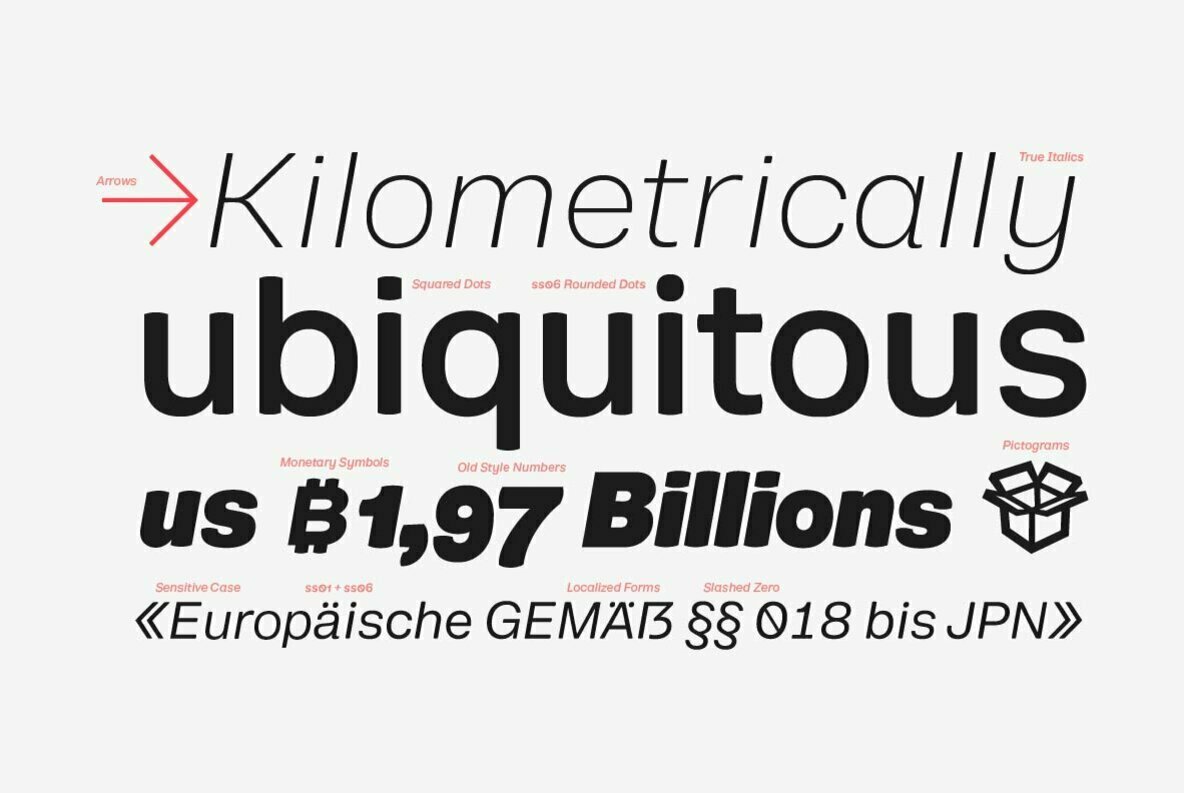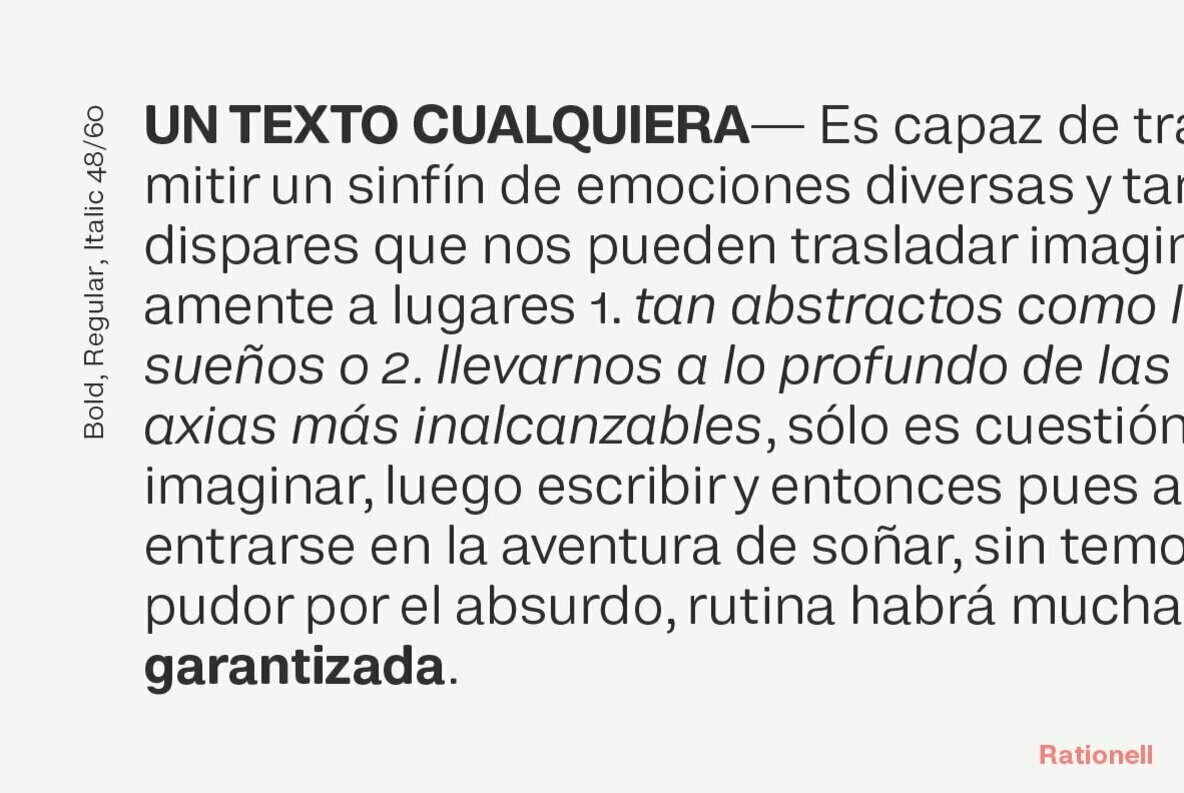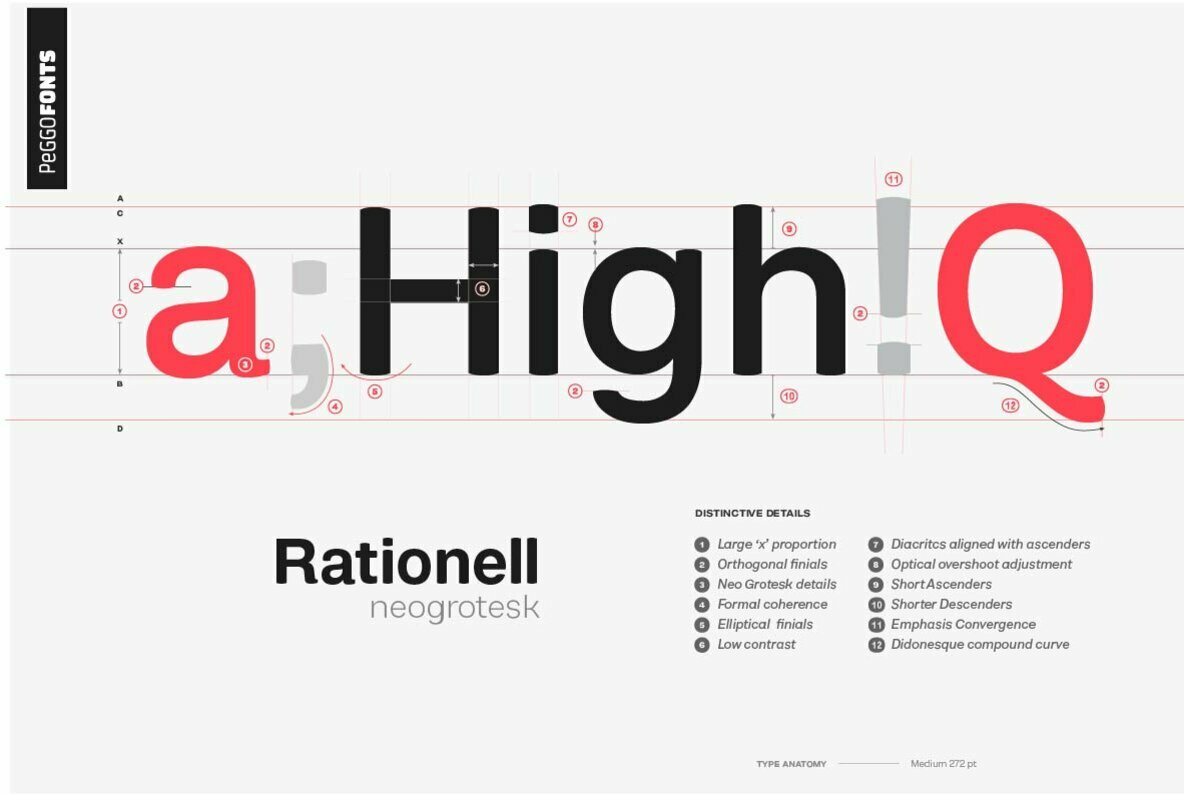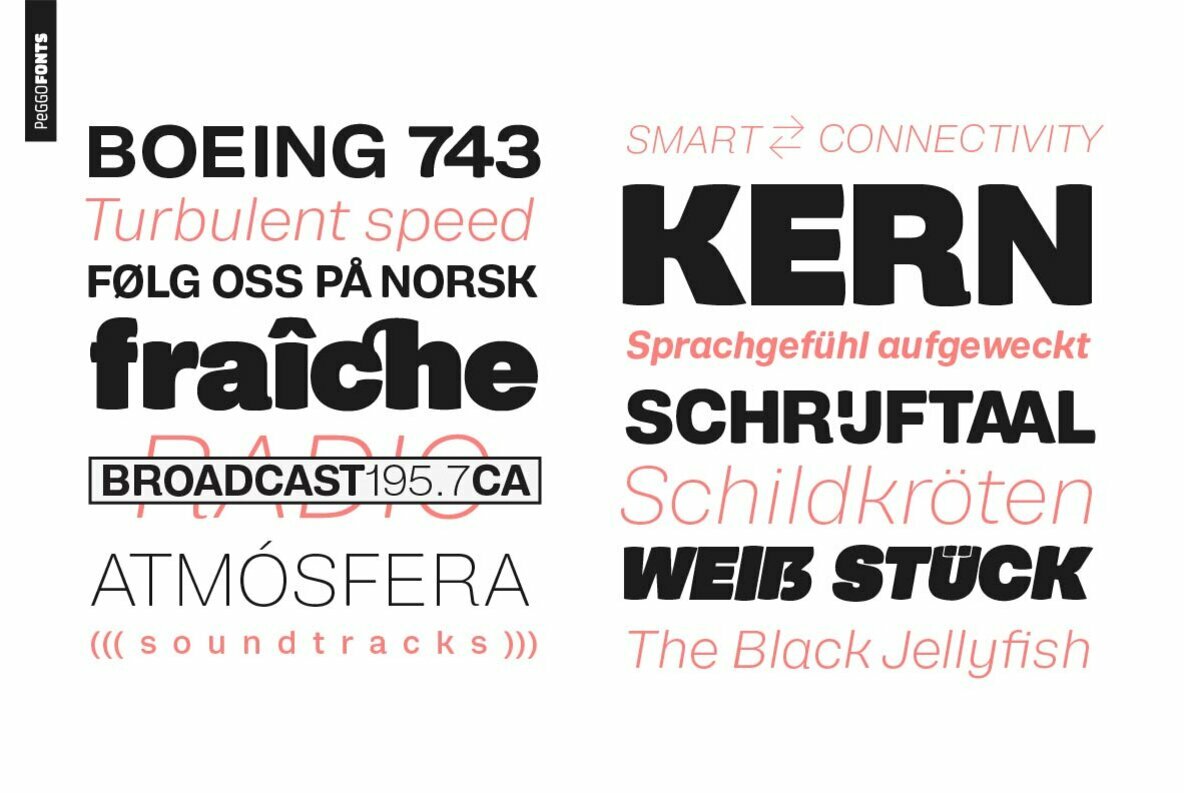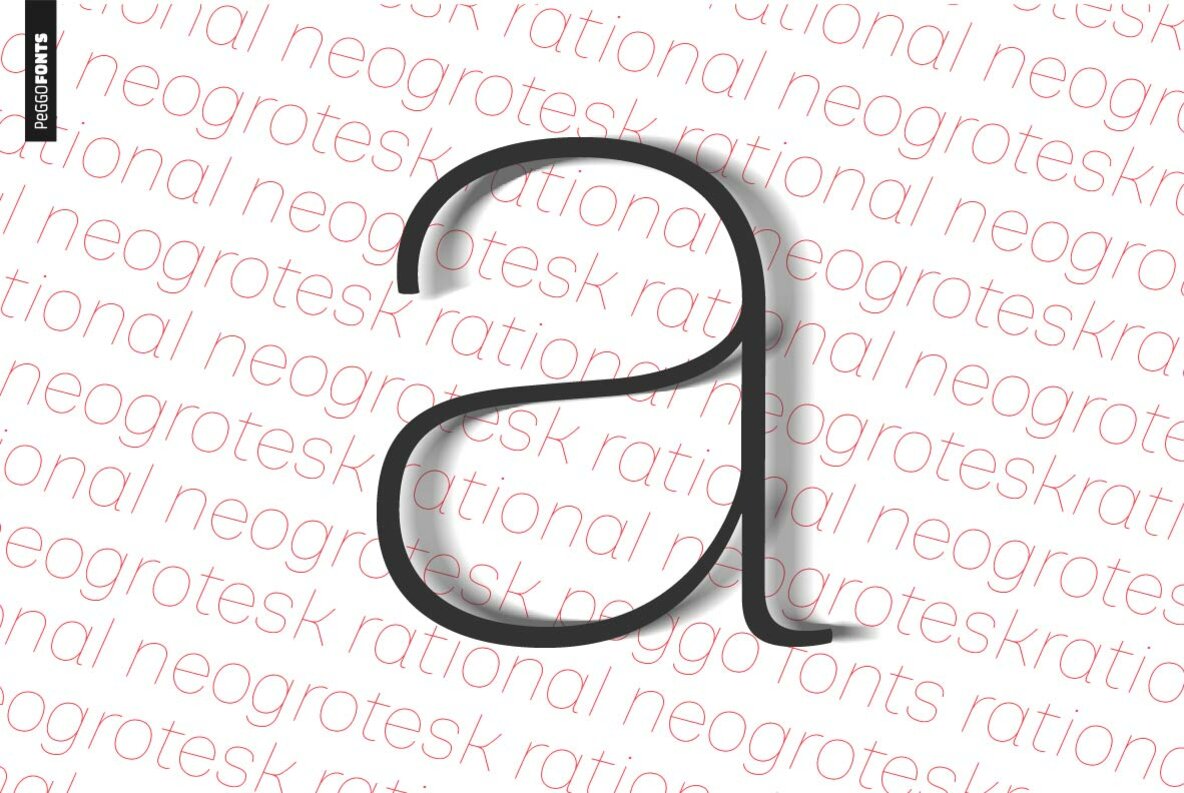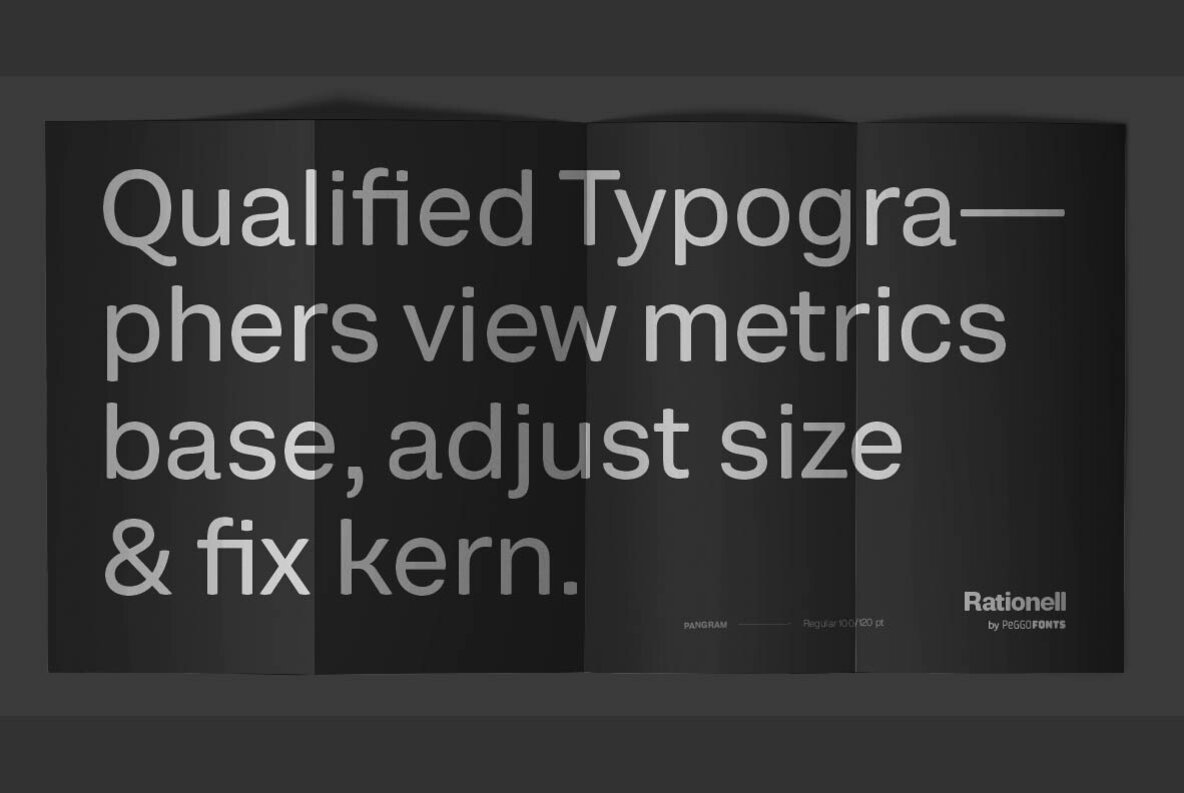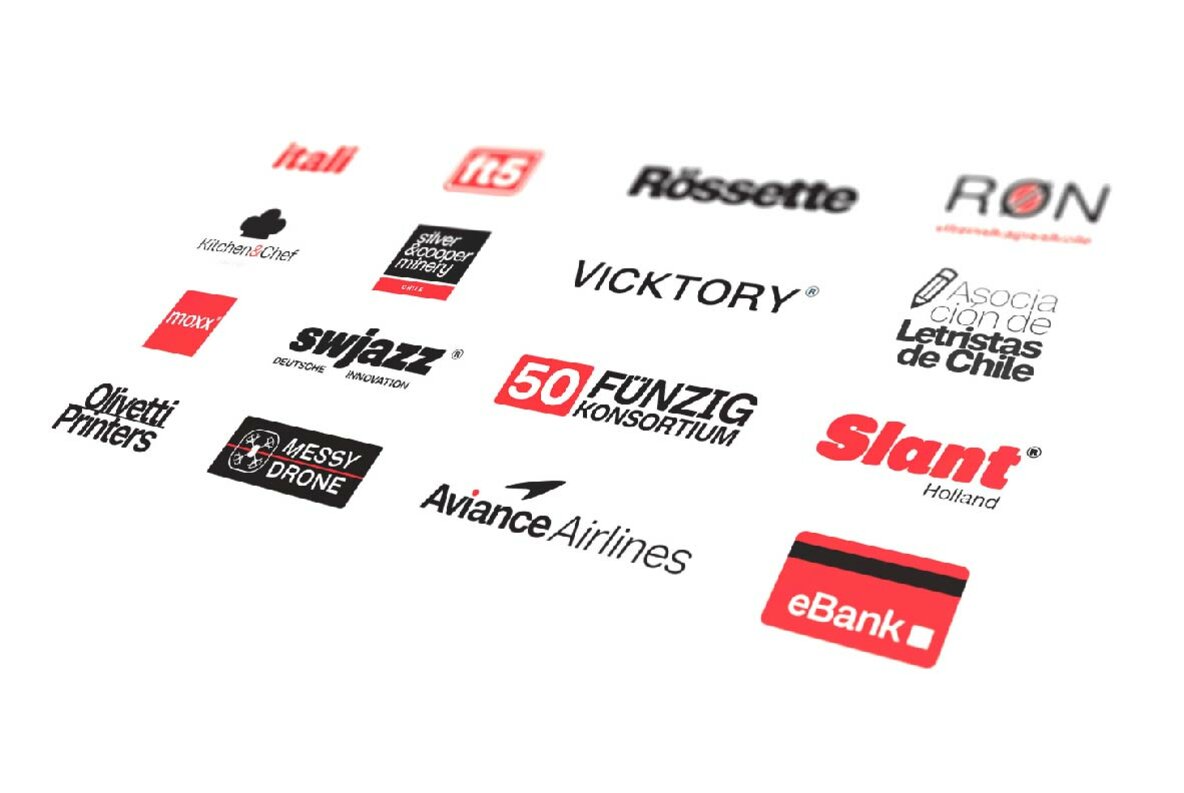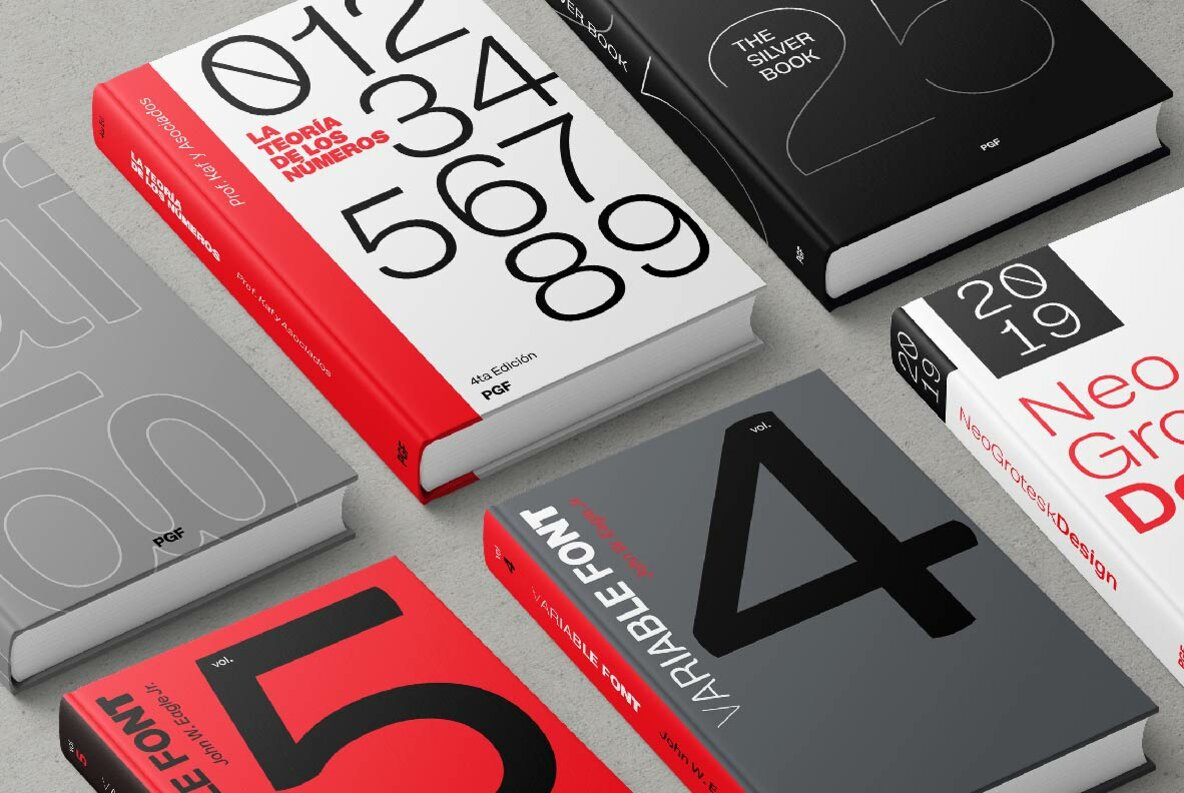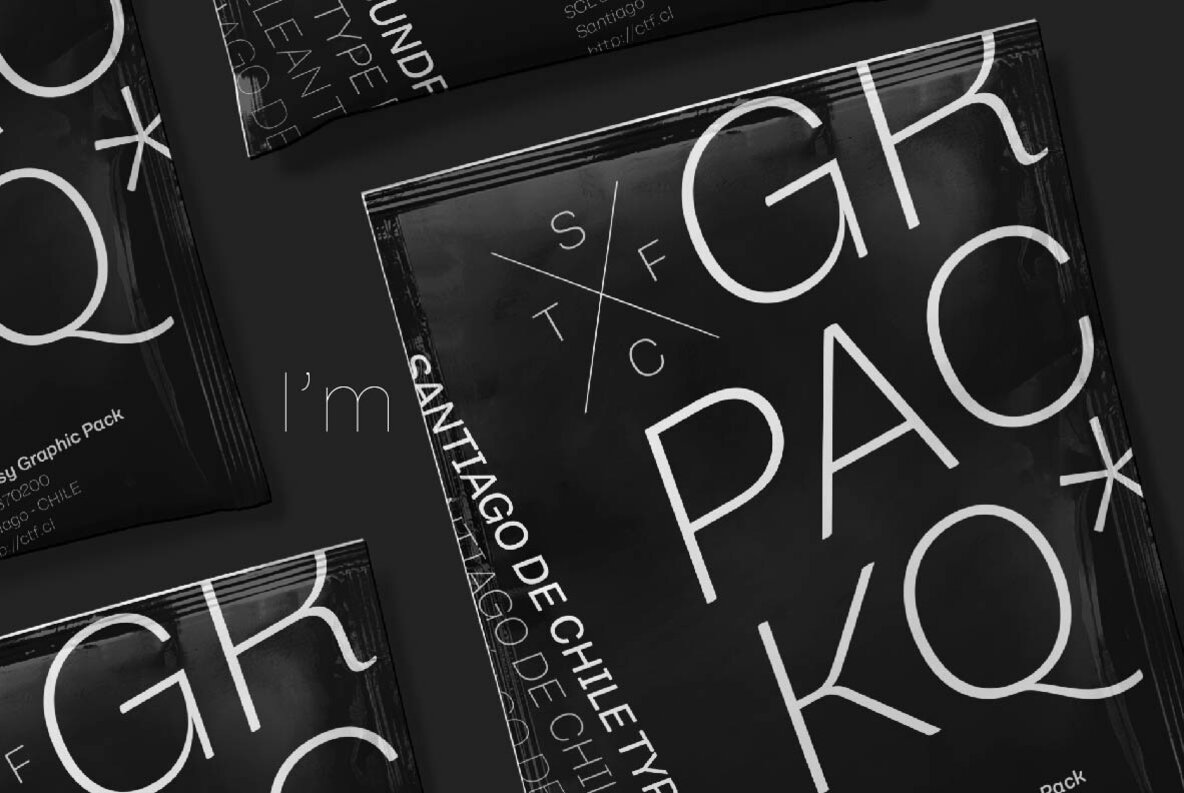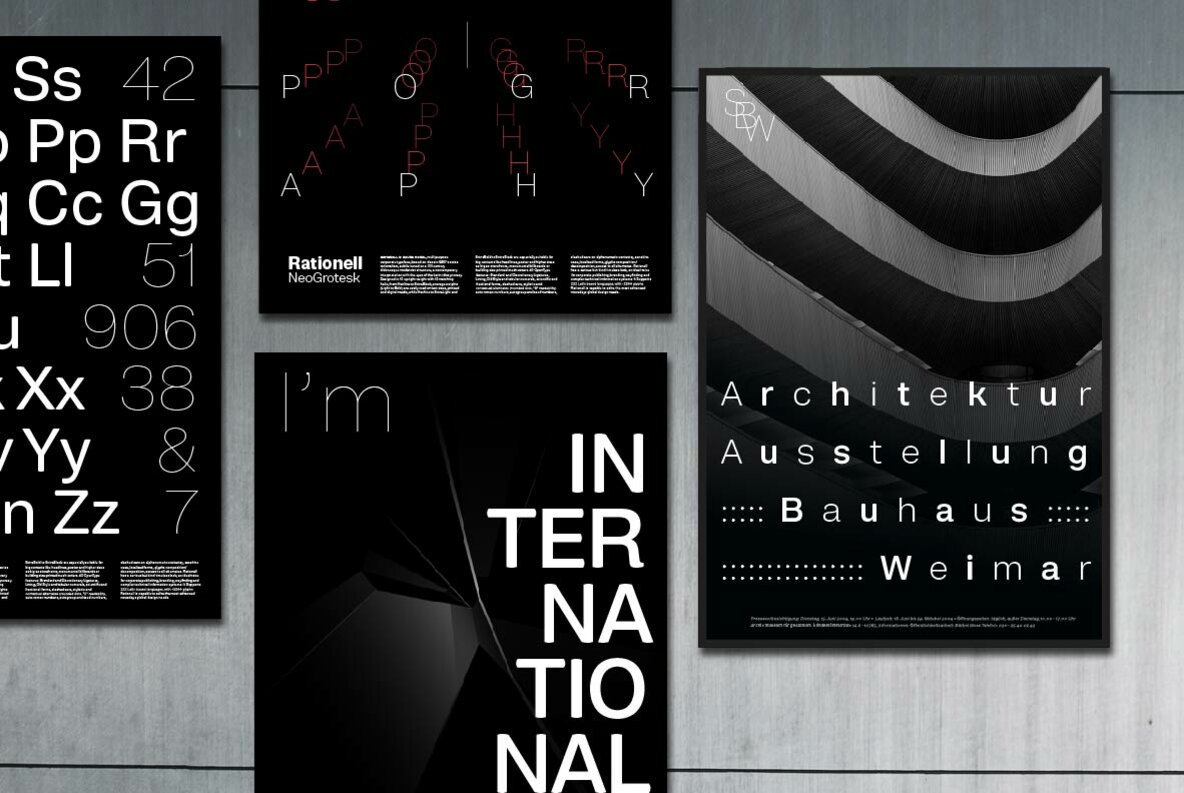
Rationell Font
Rationell is a functional multipurpose corporate typeface, based on classic 1950's swiss rationalism, subtle tuned on a XIX century didonesque modernist structure, a contemporary interpretation with the eyes of the Latin idiosyncrasy.
Designed in 12 upright weight with 12 matching Italic, from Hairline to ExtraBlack, average weights (Light to Bold) are easily read on text sizes, printed and digital media, while Hairline to ExtraLight and ExtraBold to ExtraBlack are especially suitable for big contexts like headlines, poster and higher sizes as big as storefronts, monumental billboards or building size printed mesh covers.
40 OpenType features: Standard and Discretionary Ligatures, Lining, Old Style and tabular numerals, scientific and fractional forms, slashed zero, stylistic and contextual alternates (rounded dots, "Il" readability, auto roman numbers, auto group enclosed numbers, slashed zero on alphanumeric contexts), sensitive case, localized forms, glyphs composition/decomposition, access to all alternates.
Rationell has a serious but kind timeless look, an ideal voice for corporate publishing, branding, wayfinding and complex technical information systems. It Supports 222 Latin based languages, with +2200 glyphs Rationell is capable to solve the most advanced nowadays global design needs.